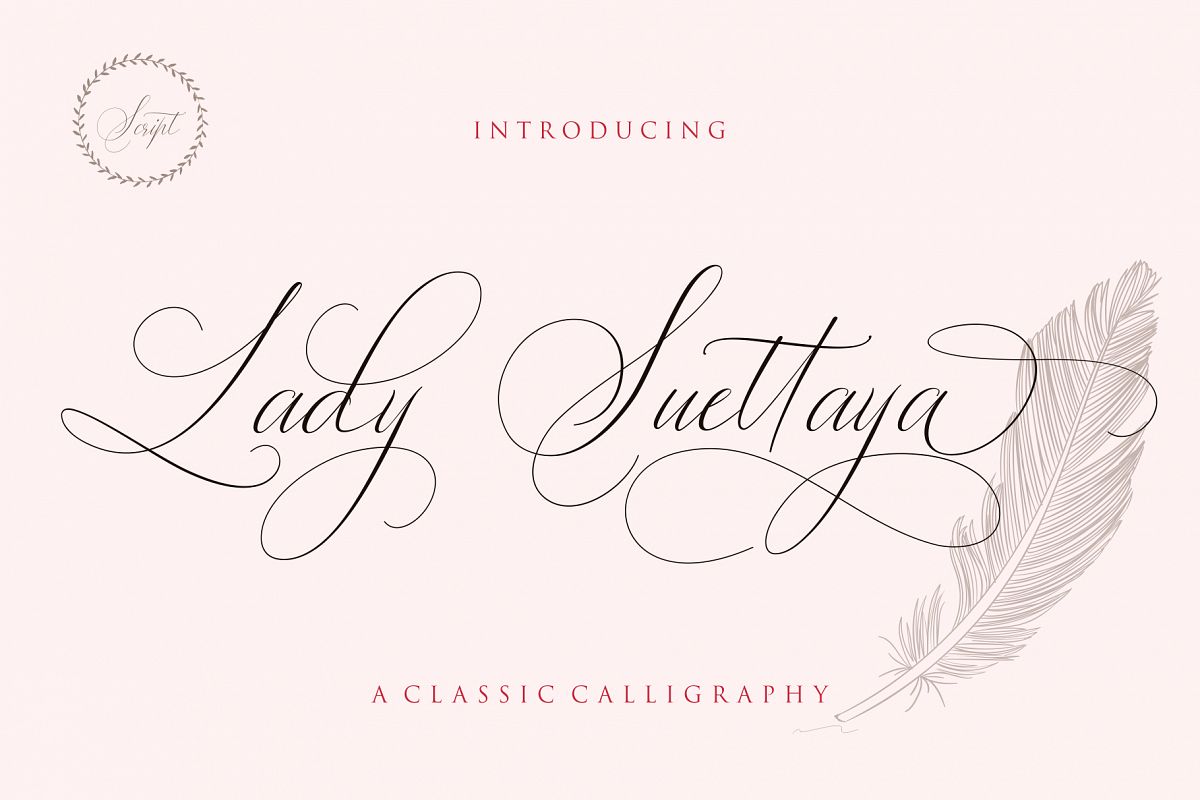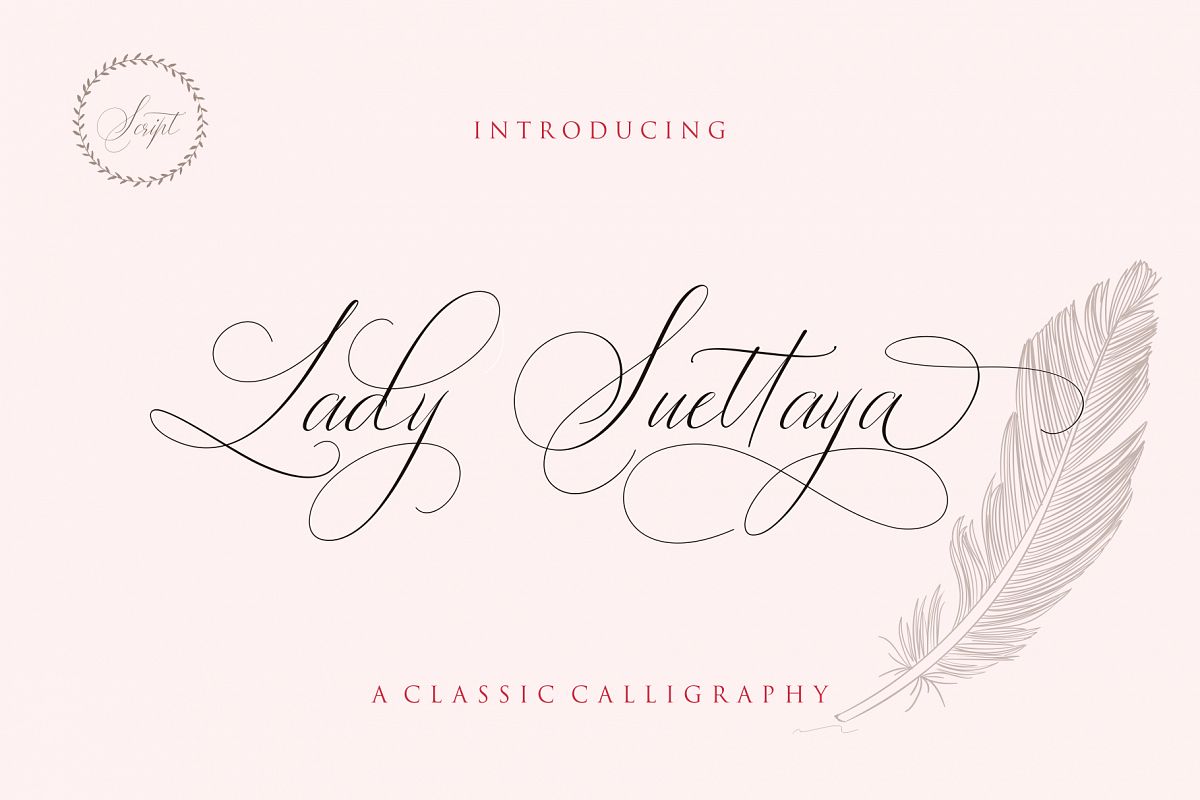
Lady Suettaya is a classic font, I build it with my relaxed hands.
designing a classic font but having a modern element in it, which makes it particularly suitable for wedding media, book covers, greeting cards, logos, branding, business cards and certificates, in fact for any design work that requires a clasik, formal or luxury look.
Lady Suettaya in your hands, enjoy the richness of OpenType features and let her fun and elegant excitement make you happy and enhance your creativity! You can use this font very easily.
There are so lovely features in it. Contains the full set of lowercase and capital letters, punctuation, numbers, and multilingual support. This font also includes some ligatures and alternative styles Stylistic Set For those of you who have software that is able to work OpenType (Corel Draw / Photoshop / Illustrator / InDesign).About Multilingual? Don't worry, I Have added the characters in International Language.What you get??